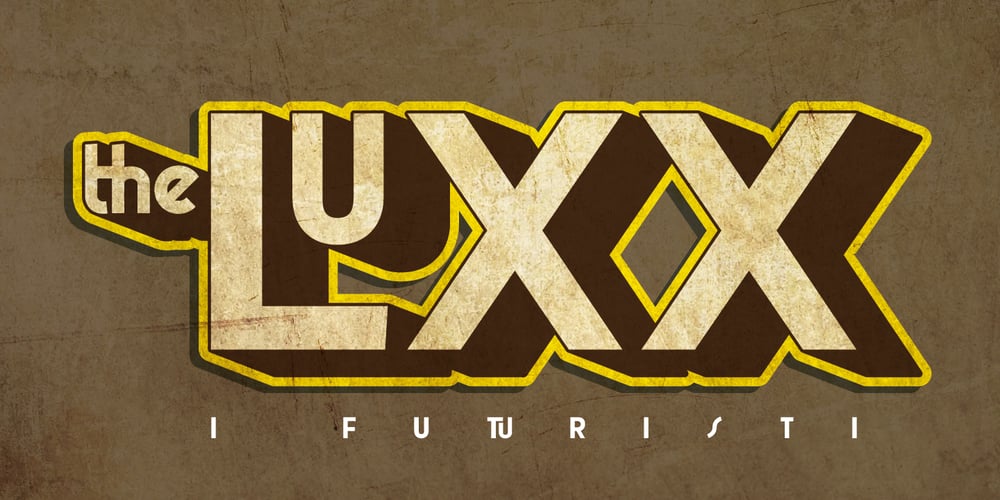
theLUXX Font Family was designed by published by Resistenza. theLUXX contains 8 styles and family package options. The Luxx font was born in 2010 and in the 2013 has been redesigned. Luxx is based on a style of lettering often seen on Italian art deco posters and advertising of the 1930s. This font is very modern, and is inspired by the “velocitá-speed” of this artistic period. TheLuxx is perfect for when you want to use eye-catching big texts for anything from posters and retro-advertisements, and art, but it´s especially striking for printed projects.